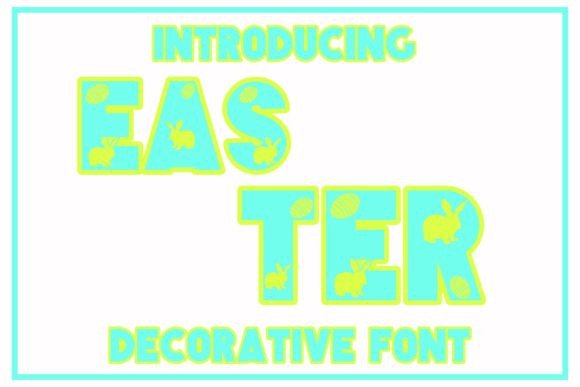
Easter Font: The Perfect Addition to Your Easter Designs
Easter is just around the corner, and with it comes the opportunity to create fun and festive designs for various products and celebrations. If you’re a designer or crafter looking for a unique and playful font to add to your Easter-themed creations, look no further than the Easter Font. This cool and uniquely crafted decorative font is perfect for stickers, mugs, t-shirts, ornaments, Easter Day cards, event invitations, and many more!
What Makes Easter Font So Special?
The Easter Font is designed to bring a touch of whimsy and fun to your designs. Its characters are carefully crafted to resemble Easter-themed elements, such as eggs, bunnies, and spring flowers. The font’s playful and festive vibe makes it an excellent choice for creating eye-catching and engaging designs that are sure to delight.
Uses for Easter Font
The Easter Font is incredibly versatile and can be used for a wide range of projects, including:
- Stickers: Add a fun and playful touch to your Easter-themed stickers with this unique font.
- Mugs: Create adorable Easter-themed mugs with custom designs featuring the Easter Font.
- T-shirts: Design fun and festive Easter t-shirts with this decorative font.
- Ornaments: Use the Easter Font to create custom Easter ornaments that are sure to become a new family tradition.
- Easter Day Cards: Add a personal touch to your Easter Day cards with this beautiful and unique font.
- Event Invitations: Create eye-catching and engaging event invitations for Easter-themed parties and events.
Why Choose Easter Font?
There are many decorative fonts available, but the Easter Font stands out from the rest due to its unique and playful design. Here are just a few reasons why you should choose the Easter Font for your next project:
- Unique Design: The Easter Font features a one-of-a-kind design that is sure to make your projects stand out.
- High-Quality: The Easter Font is a high-quality font that is designed to produce crisp and clear results, even at small sizes.
- Versatility: This font can be used for a wide range of projects, from stickers and mugs to ornaments and event invitations.
Tips for Using Easter Font
To get the most out of the Easter Font, here are a few tips to keep in mind:
- Experiment with Colors: The Easter Font looks great in a variety of colors, so don’t be afraid to experiment and find the perfect color scheme for your project.
- Mix and Match: Combine the Easter Font with other fonts and design elements to create a unique and eye-catching design.
- Pay Attention to Size: Make sure to adjust the size of the font to fit your project. The Easter Font can be used at a variety of sizes, but it’s best to use it at a size that allows the characters to be clear and legible.
The Easter Font is a fun and uniquely crafted decorative font that is perfect for adding a touch of whimsy and playfulness to your Easter-themed designs. With its wide range of uses, ease of use, and high-quality design, this font is a must-have for designers and crafters looking to create eye-catching and engaging projects. So why wait? Download the Easter Font today and start creating your own Easter-themed masterpieces!